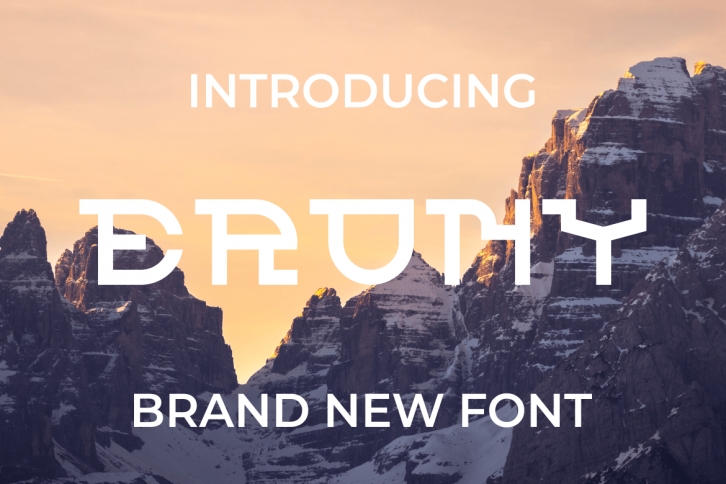
ERONY is a modern, bold and authentic display font. The font is suitable and could prove outstanding for multiple branding projects like logos, t-shirts printing, esports and many more.